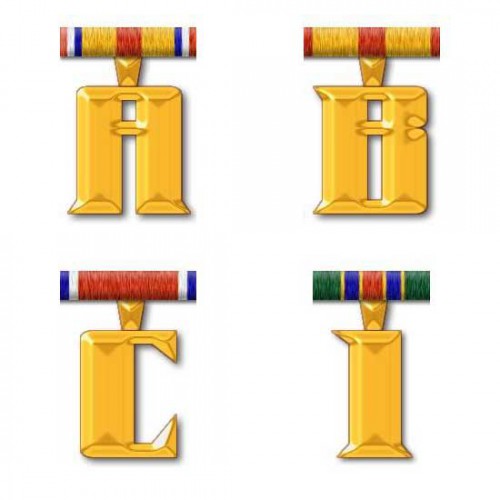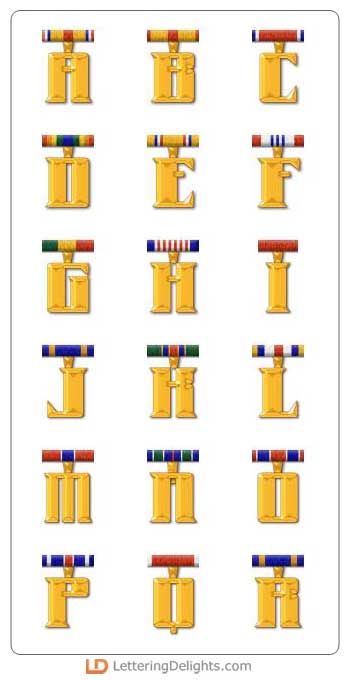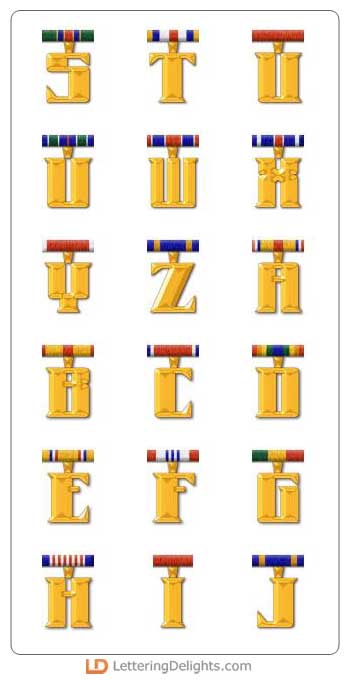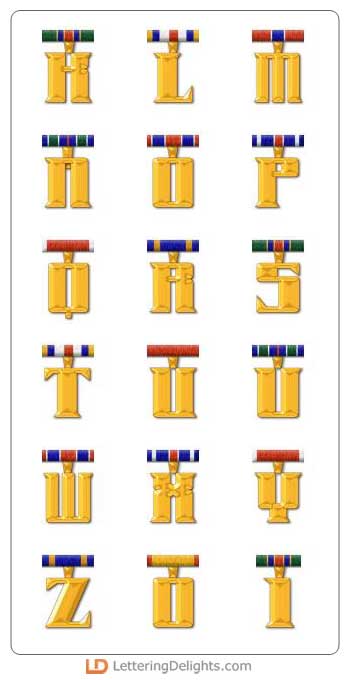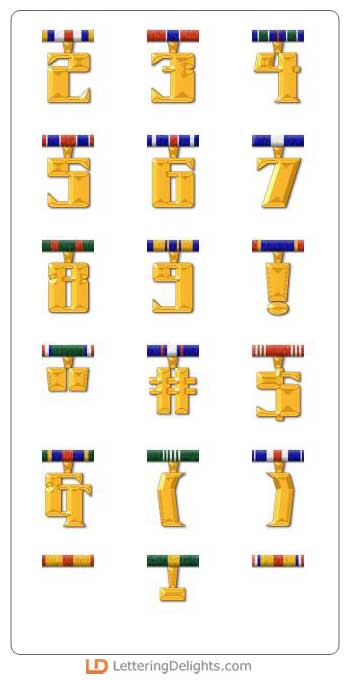
Medals of Honor are rewarded for bravery and excelling at one's duties. This beautiful alphabet letters hang down from colored ribbon. It's great to decorate a military scrapbook layout.